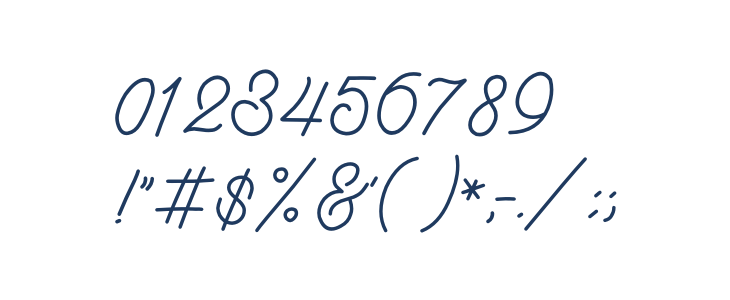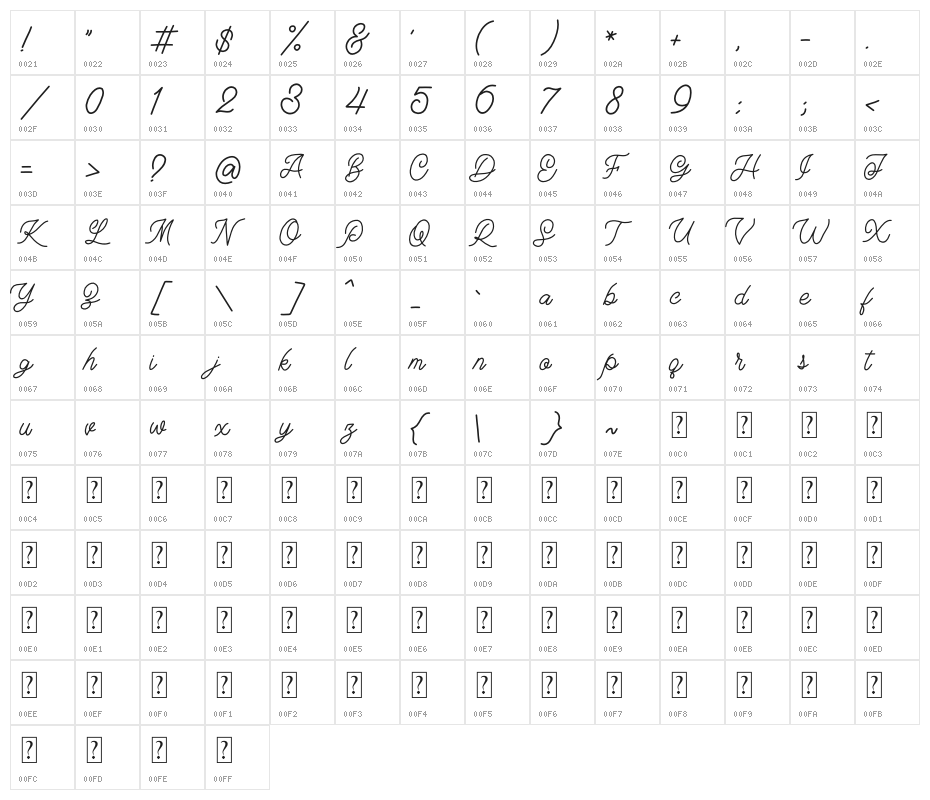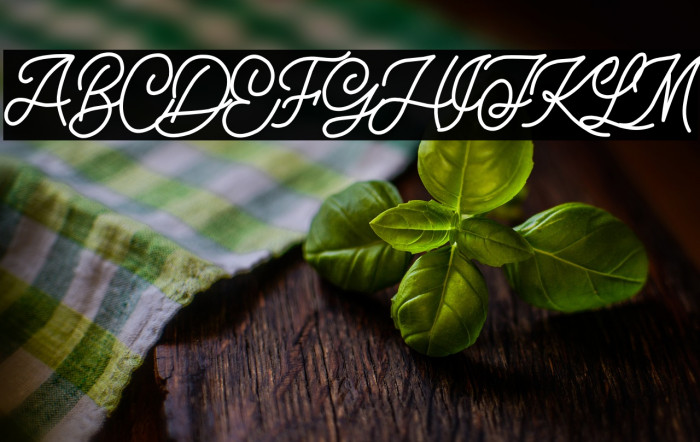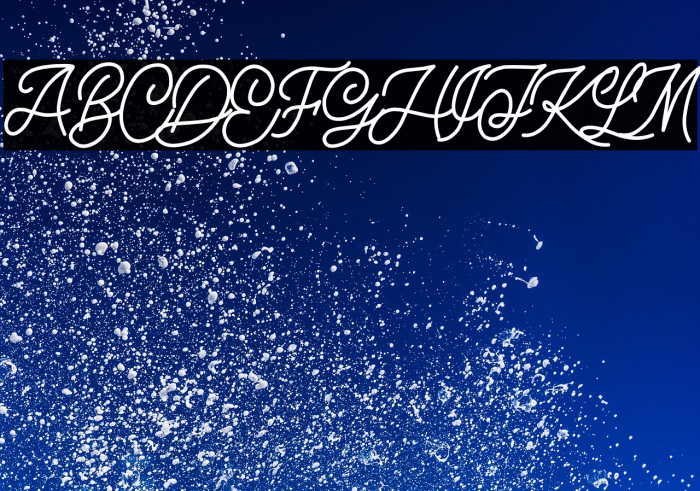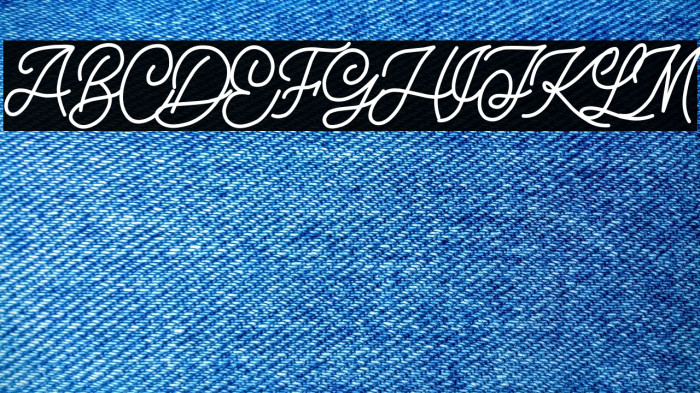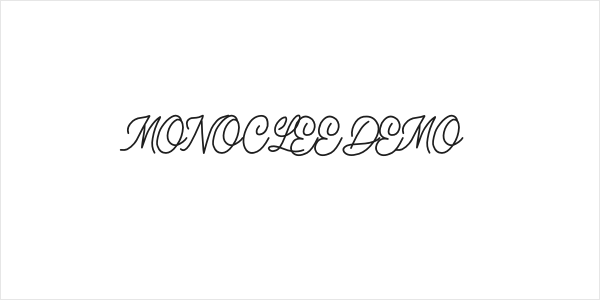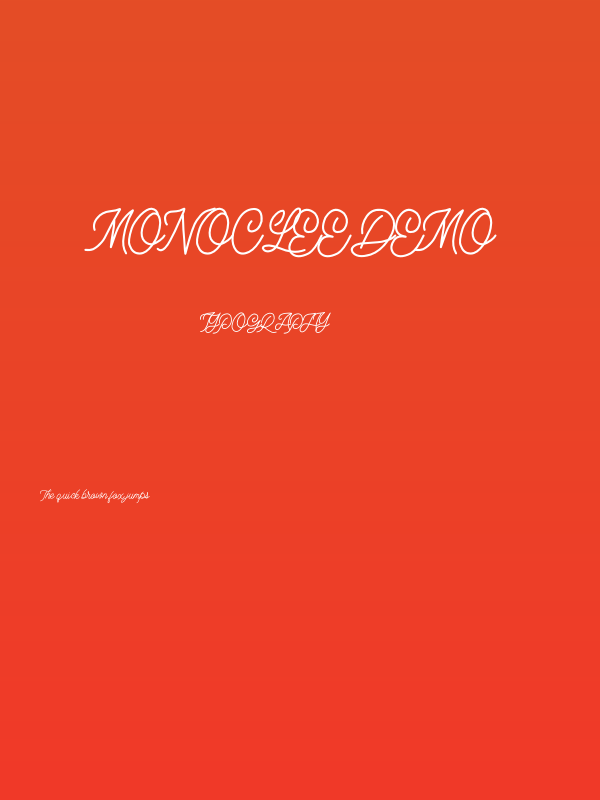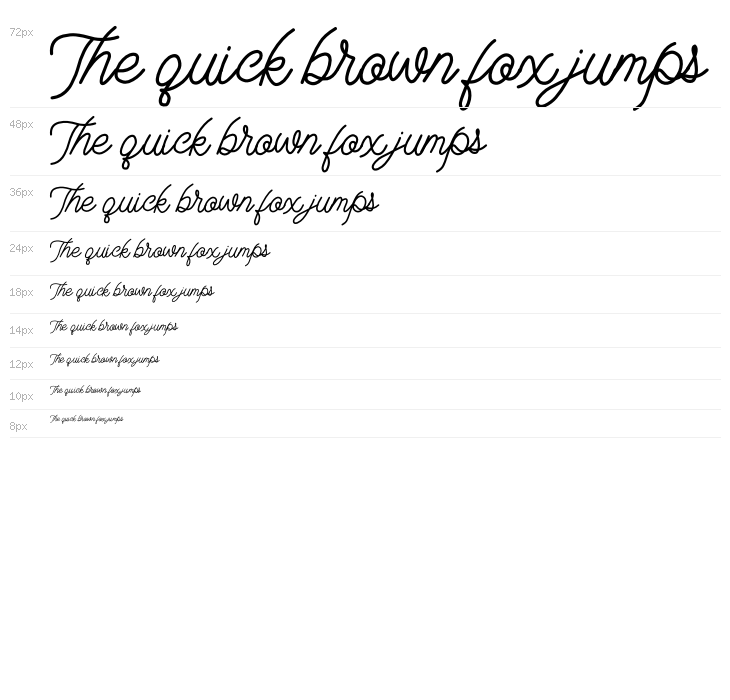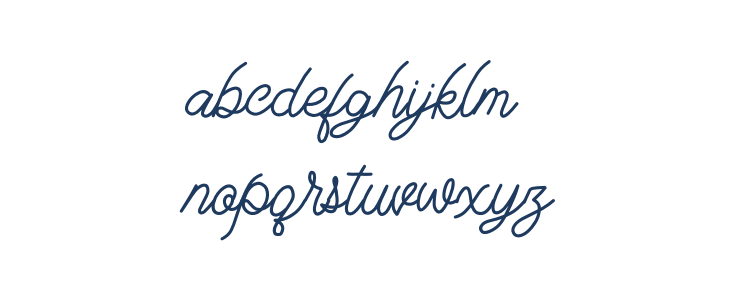
MONOCLEE DEMO Font
MONOCLEE DEMO Description
This elegant script font features a flowing, cursive style with smooth, connected letters that evoke a sense of sophistication and grace. The uppercase letters are slightly larger and more ornate, while the lowercase letters maintain a consistent flow, enhancing readability. The numerals are designed with a similar cursive flair, ensuring a cohesive look across all characters. Special characters are thoughtfully integrated, maintaining the font's overall aesthetic. The font's thin strokes and gentle curves make it ideal for projects requiring a touch of elegance and personal expression.
| Overall Style | Elegant, Sophisticated |
| Use Case | Logos, Invitations, Personal Stationery |
| Proposed Projects | Ideal for wedding invitations, elegant branding, personal stationery, and artistic projects requiring a touch of sophistication. |